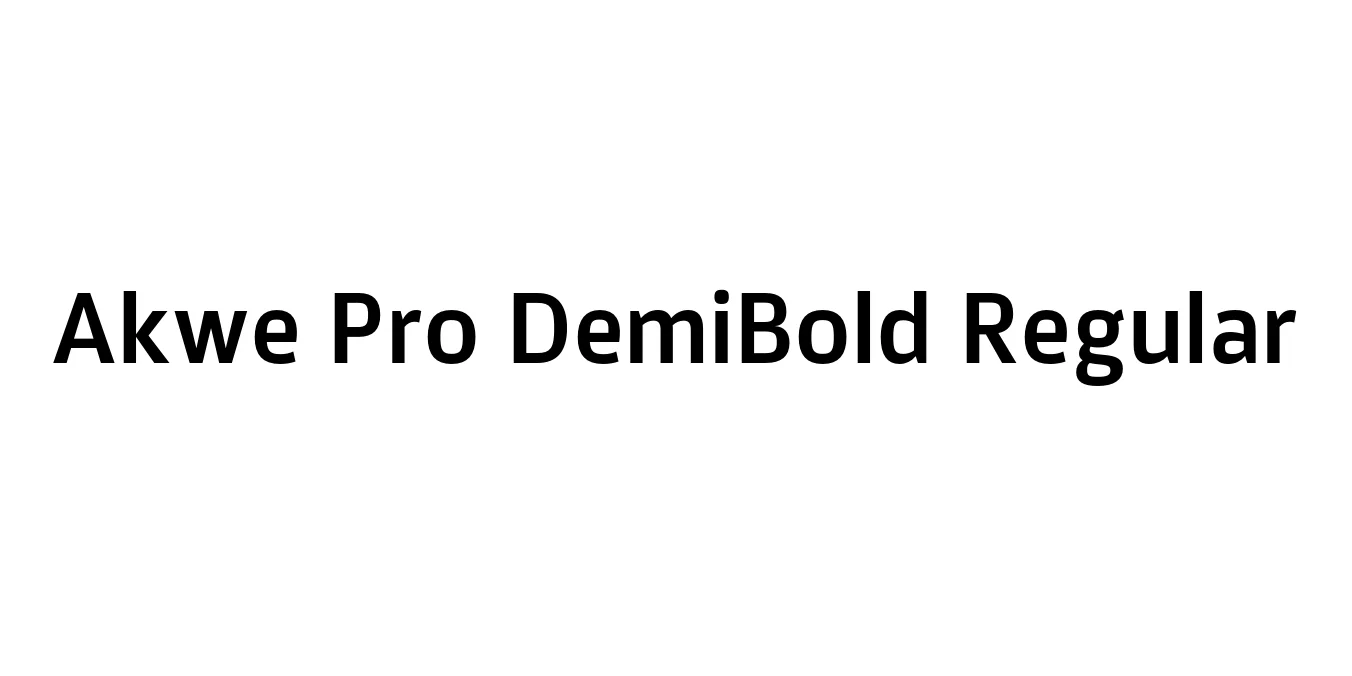
Akwe Pro DemiBold Regular
Designed by Karol Mularczyk
Akwe Pro DemiBold Regular is a versatile and contemporary sans-serif typeface designed to bridge the gap between geometric and humanist styles. It offers a balanced weight that provides excellent legibility in both digital and print media, making it a favorite for modern branding and professional editorial projects.
Developed by Karol Mularczyk, this font features a large x-height and open apertures, which ensure clarity even at smaller point sizes. The DemiBold weight specifically adds a touch of authority and emphasis without overwhelming the surrounding text, making it perfect for professional user interfaces, headlines, and corporate communication.
Akwe Pro DemiBold Regular Best Uses
Ideal for clear and readable body text or high-impact subheadings.
Suitable for professional logos and high-end company stationery.
Ensures high legibility for mobile and desktop application menus.
Highly effective for brochures, flyers, and digital social media graphics.